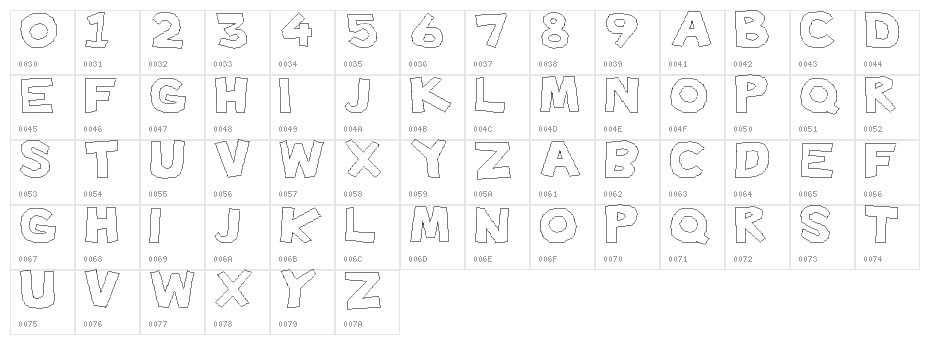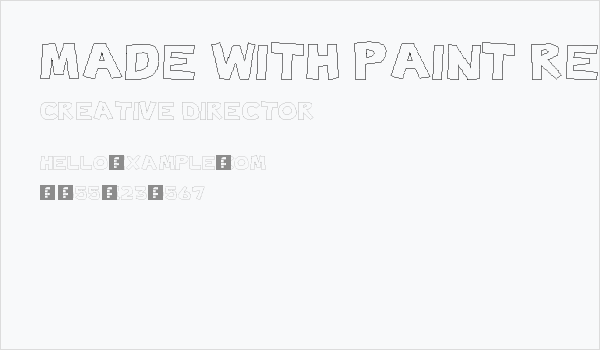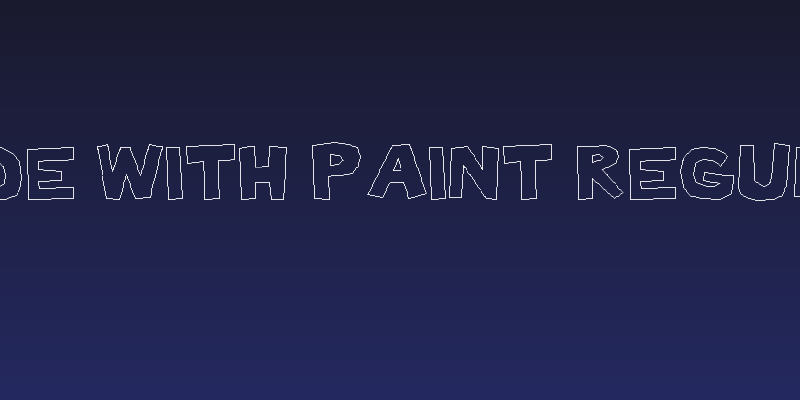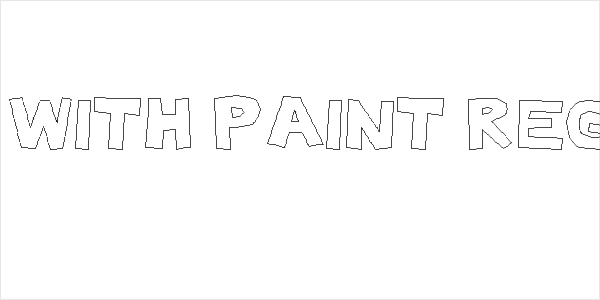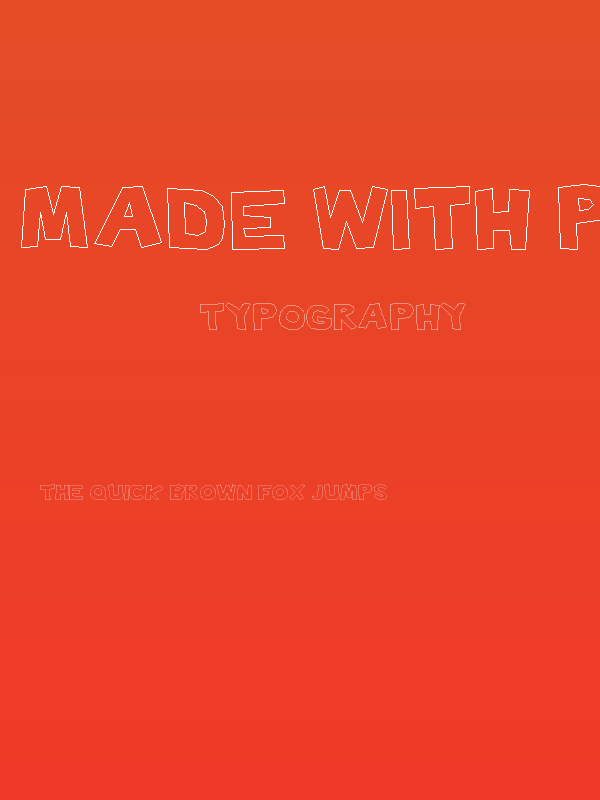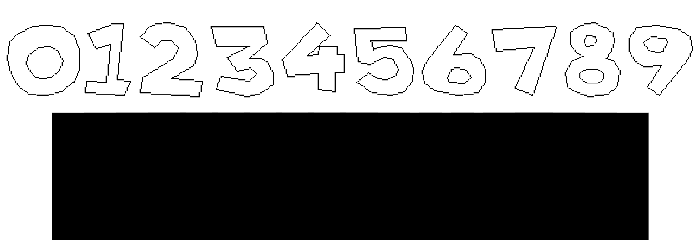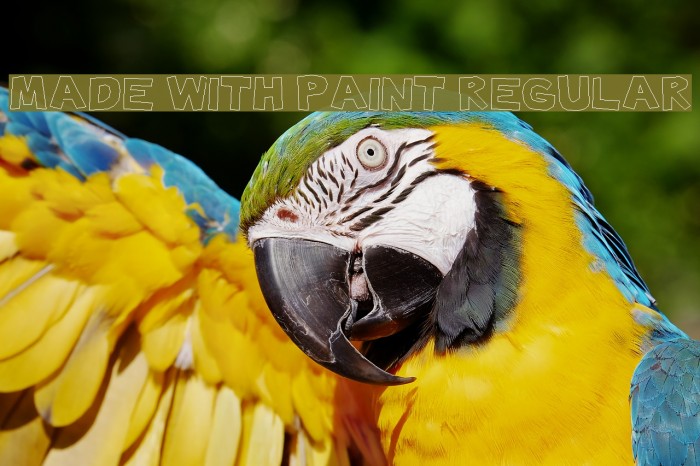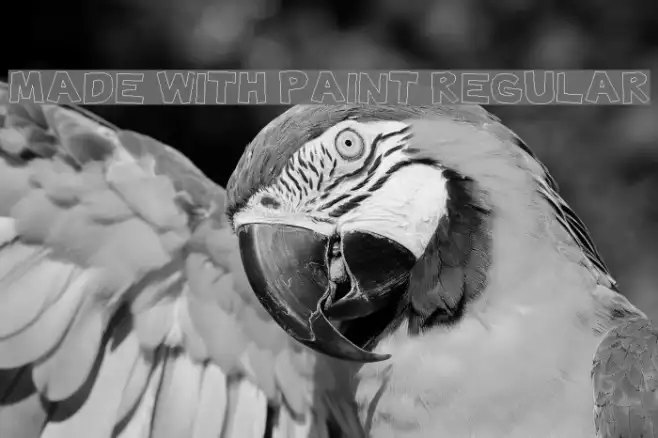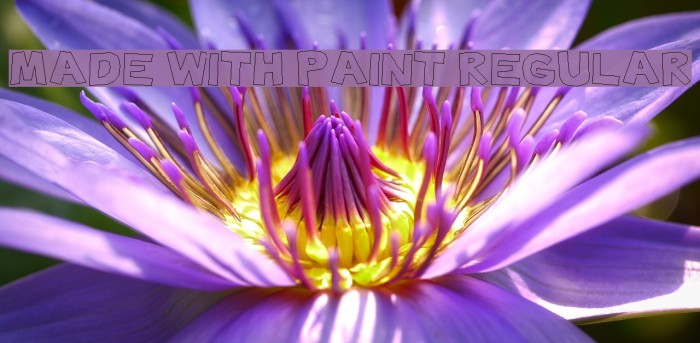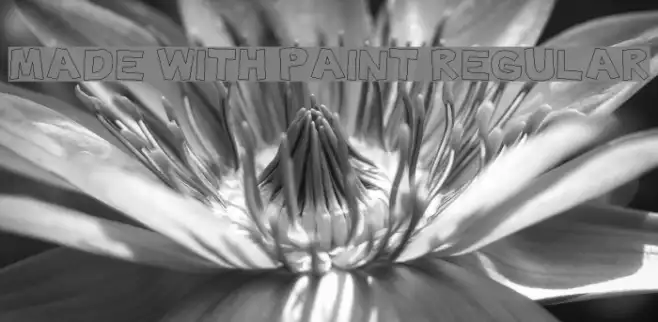
Made with Paint Regular Font
Made with Paint Regular Description
This font features a playful and bold design with a hand-drawn aesthetic. The characters are outlined, giving them a unique and artistic appearance reminiscent of sketches or doodles. Each letter and number is crafted with a sense of whimsy, making it ideal for creative projects. The font maintains a consistent thickness throughout, ensuring readability while adding a touch of fun. Its informal style is perfect for projects that require a casual and approachable look.
| Overall Style | Playful, Artistic, Hand-drawn |
| Use Case | Headlines, Posters, Creative projects |
| Proposed Projects | Ideal for children's books, comic strips, playful branding, and creative posters. |